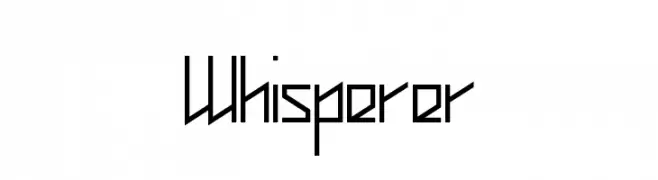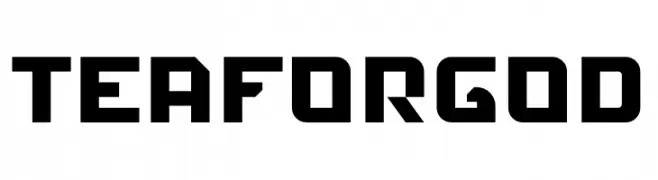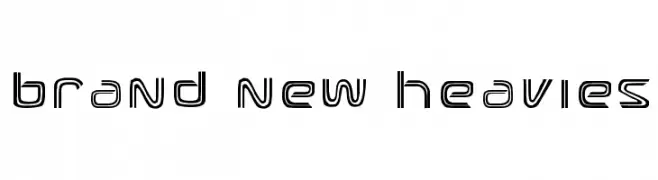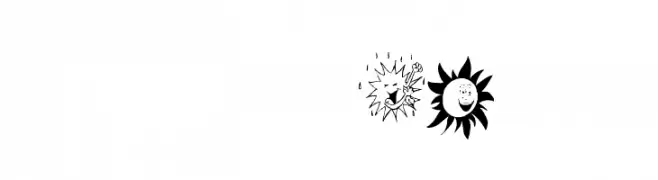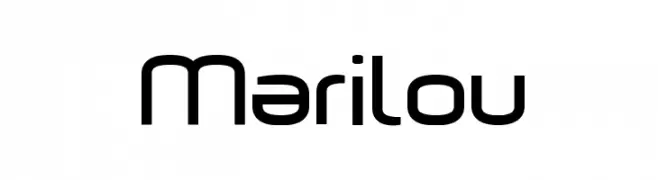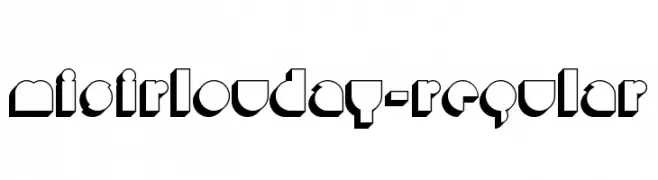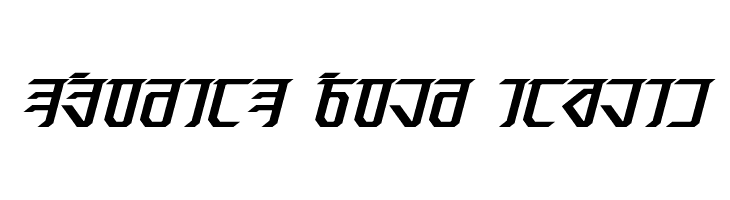
A bold, geometric font with a futuristic and modern aesthetic.
A geometric, angular font with a modern and futuristic style.
A bold, geometric font with a futuristic and industrial style.
A futuristic, geometric font with a bold, layered design.
A dynamic, brush-style font with medium contrast and a handwritten feel.
A playful collection of sun-themed dingbats with expressive and whimsical designs.
A modern, geometric sans-serif font with rounded, smooth characters.
A bold, geometric font with a three-dimensional shadow effect.
A bold, hand-drawn brush-style font with an energetic and artistic flair.